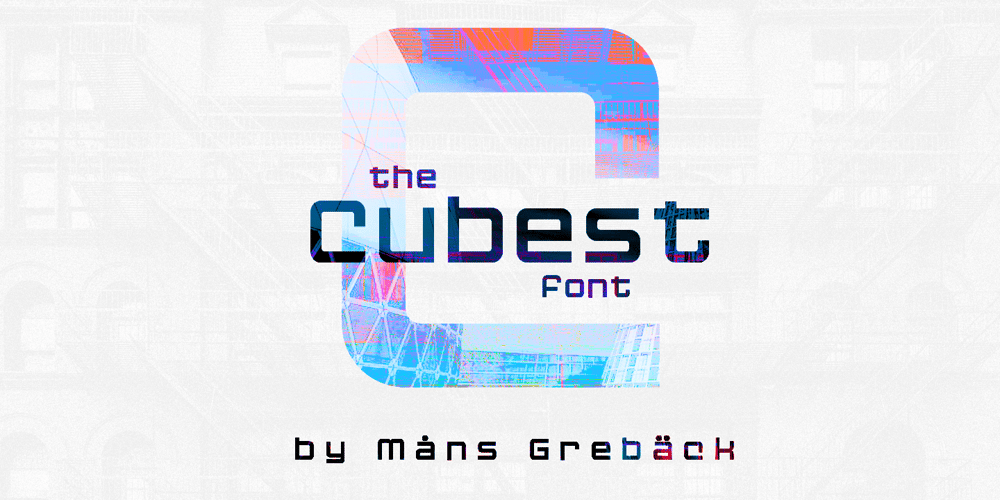
Cubest Font Family was designed by Måns Grebäck and published by Mans Greback. Cubest contains 8 styles and family package options. Cubest is a geometric sans-serif typeface. Created by Mans Greback in 2021, this futuristic font has a square, monolined appearance with a retro-digital style. The family consists of eight styles: In addition to Light, Medium and Bold, it is also provided as Cubest Monospace and Cubest Variable, plus each weight as Italic. The font supports all European Latin-based languages and contains all symbols, characters, punctuation and numbers.